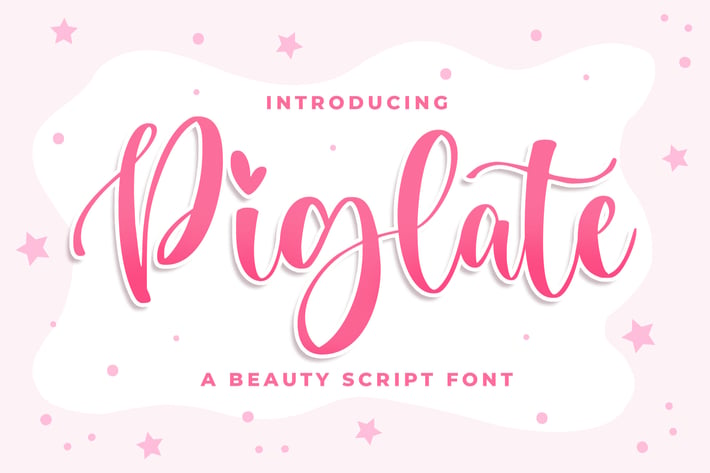
Piglate a Beauty Script Font
Introducing of our new product the name is Piglate a Beauty Script Font. Piglate inspired by modern calligraphy style this font is a fun theme very good for display, tshirt design, craft, quote sign, logotype and etc